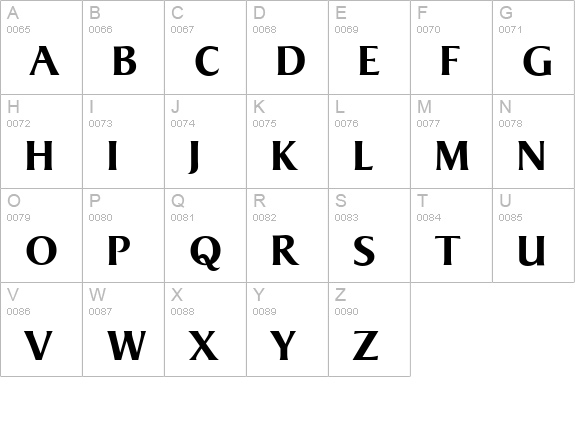
SigvarSerial-Bold Font Details
SigvarSerial-Bold is a strong, high-contrast variant in the SigvarSerial typeface family \xE2\x80\x94 well suited to headlines, attention-grabbing titles, and strong calls-to-action.
SigvarSerial-Bold is a modern and bold font that exudes confidence and strength. With its clean lines and strong presence, this typeface is perfect for making a statement in any design project. The boldness of SigvarSerial-Bold makes it ideal for headlines, posters, and branding materials that require a bold and impactful look. What's even better is that SigvarSerial-Bold is available for free download at FontsMarket.com. This means you can easily access this powerful font and use it in your projects without any cost. So go ahead and elevate your designs with the bold and striking SigvarSerial-Bold font today!